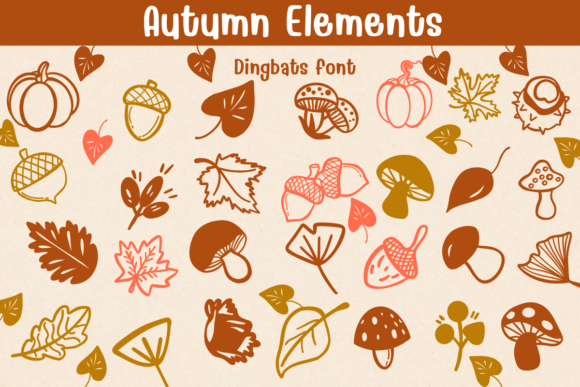
Introducing Autumn Elements Font: The Perfect Addition to Your Fall-Themed Projects
As the leaves change colors and the air grows crisper, we’re reminded that autumn is a season of cozy charm and natural beauty. For crafters, designers, and DIY enthusiasts, this time of year offers endless inspiration for creative projects. That’s why we’re excited to introduce the Autumn Elements Font, a delightful dingbats font packed with hand-drawn seasonal icons that will add a touch of autumn magic to all your creations.
What is Autumn Elements Font?
Autumn Elements is a decorative symbol font that features a collection of hand-drawn icons, including acorns, pumpkins, leaves, and mushrooms. This charming font is perfect for fall-themed crafts, planners, cards, and sublimation projects. With its whimsical and rustic design, Autumn Elements Font brings a sense of cozy charm to any project, making it ideal for anyone looking to add a personal touch to their autumn creations.
Key Features of Autumn Elements Font
- Hand-drawn seasonal icons: The font features a range of hand-drawn icons, including acorns, pumpkins, leaves, and mushrooms, all carefully crafted to capture the essence of the autumn season.
- Dingbats font style: The Autumn Elements Font is a dingbats font, making it easy to use and incorporate into your projects.
- Perfect for fall-themed projects: Whether you’re creating crafts, planners, cards, or sublimation projects, this font is the perfect addition to your autumn-themed designs.
- Coy charm and rustic design: The font’s whimsical and rustic design brings a sense of cozy charm to any project, making it ideal for anyone looking to add a personal touch to their autumn creations.
Uses for Autumn Elements Font
The Autumn Elements Font is versatile and can be used in a variety of creative projects. Here are some ideas to get you started:
Fall-Themed Crafts
Autumn Elements Font is perfect for fall-themed crafts, such as scrapbooking, paper crafting, and DIY decorations. Use the font to add a personal touch to your projects, creating unique and eye-catching designs that capture the essence of the season.
Planners and Organizers
Add a touch of autumn charm to your planners and organizers with the Autumn Elements Font. Use the font to create custom headers, footers, and icons that will make your planners stand out.
Cards and Invitations
Create beautiful and unique cards and invitations with the Autumn Elements Font. The font’s whimsical design makes it perfect for fall-themed greetings, invitations, and stationery.
Sublimation Projects
The Autumn Elements Font is also perfect for sublimation projects, such as custom mugs, tumblers, and t-shirts. Add a personal touch to your designs with the font’s hand-drawn seasonal icons.
Tips for Using Autumn Elements Font
Here are some tips for using the Autumn Elements Font in your projects:
Experiment with Different Sizes and Colors
Don’t be afraid to experiment with different sizes and colors when using the Autumn Elements Font. The font’s hand-drawn design looks great in a variety of sizes and colors, so try out different combinations to find the one that works best for your project.
Combine with Other Fonts
The Autumn Elements Font pairs well with other fonts, so don’t be afraid to combine it with your favorite fonts to create a unique and eye-catching design.
Use for Headings and Titles
The Autumn Elements Font is perfect for headings and titles, adding a touch of autumn charm to your projects. Use the font to create custom headings and titles that will make your projects stand out.
The Autumn Elements Font is a delightful dingbats font that brings a touch of cozy charm to all your autumn creations. With its hand-drawn seasonal icons and whimsical design, this font is perfect for fall-themed crafts, planners, cards, and sublimation projects. Whether you’re a crafter, designer, or DIY enthusiast, the Autumn Elements Font is a must-have addition to your font collection.